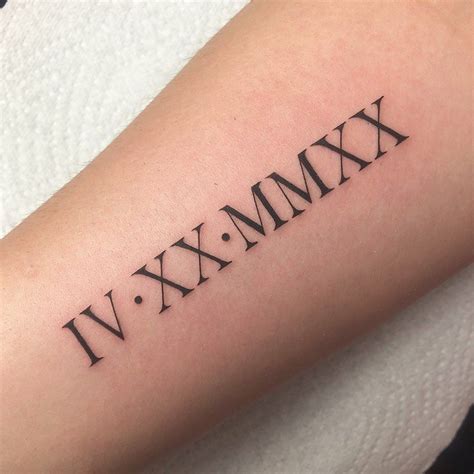
Tattoo Fonts Roman Numerals Generator, Do not miss our most special fonts for your tattoos, drawings, prints, murals. Roman numeral tattoo date generator.
Roman Numeral Tattoo Font Generator
Roman numeral font generator is a tool to convert your simple plain text to roman numeral font, and you don't have to spend so much time. This number system was invented in ancient rome, and is used today for things like sporting events, or a tattoo of a special number. Lipstick font generator about fonts pool text generator is an amazing tool, that help to generate images of your own choice fonts. This roman tattoo date converter will convert months, days, years and complete dates into roman numerals correctly without any errors, perfect for generating your roman numeral tattoo date!.
Roman numeral font tattoo generator widget most often, roman numeral tattoo font are used as part of official introductions, such as numbered passages in a book or chapters. 0 out of 5 stars (based on 0 reviews) excellent 0%. The font and style of the roman numerals make it more prominent and attractive. Roman numeral tattoo date generator. Roman numeral.
Roman numerals tattoo fonts styles which have uniques and appealing fonts styles turn into a decent decision to communicated in the piece of body. The numbers in this font are stylish, bold, and classic, and they are clearly recognizable if inked among other tattoos. Roman numerals tattoos mean simple for women. This text generator will convert your text immediately to.